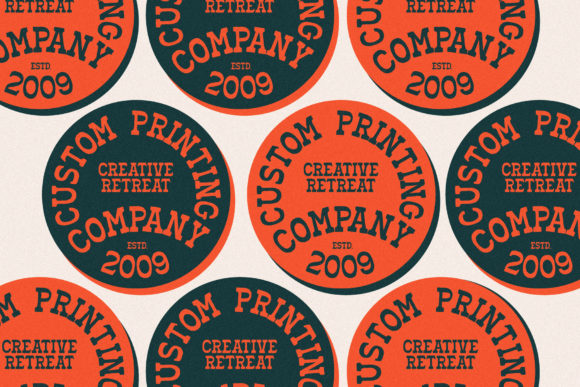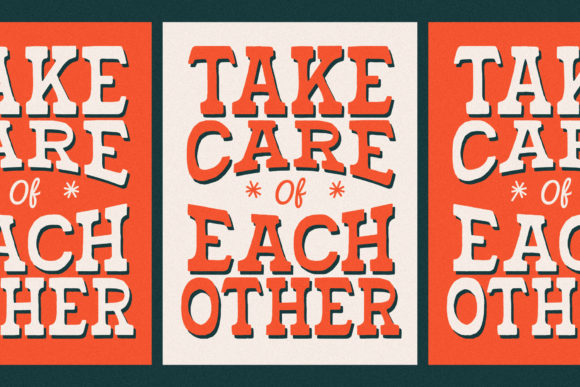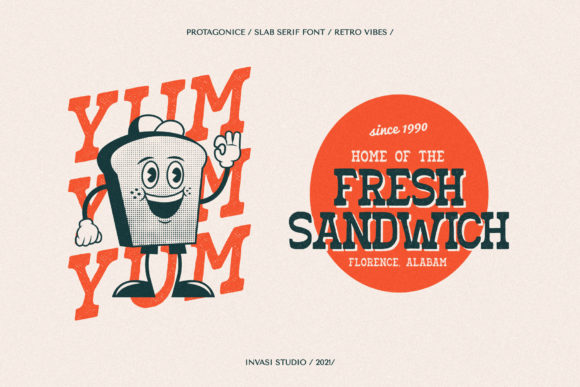
Introduction to Prota Gonice Font Font
Fonts play a crucial role in design, and the Prota Gonice Font font is a typeface that brings both character and versatility to any project. Whether you’re working on a branding project, a website, or a print design, the Prota Gonice Font font offers a unique style that can elevate your work.
Prota Gonice is a retro and cool slab serif font.
It is imposing and features uniquely shaped letters, and as a result, it will easily match a wide range of creations that require a distinct touch .
Key Features of Prota Gonice Font Font
Why Choose Prota Gonice Font Font?
The Prota Gonice Font font is more than just a typeface – it’s a design tool that helps you communicate your message with style and clarity. Its unique character set and versatile design make it suitable for a wide range of applications, from elegant invitations to bold headlines.
With its carefully crafted letterforms and balanced proportions, the Prota Gonice Font font ensures readability and visual appeal across all mediums.
What makes Prota Gonice Font font special?
The Prota Gonice Font font stands out with its unique design, exceptional readability, and versatility across various design applications.